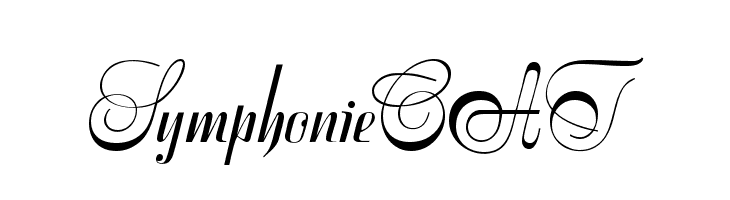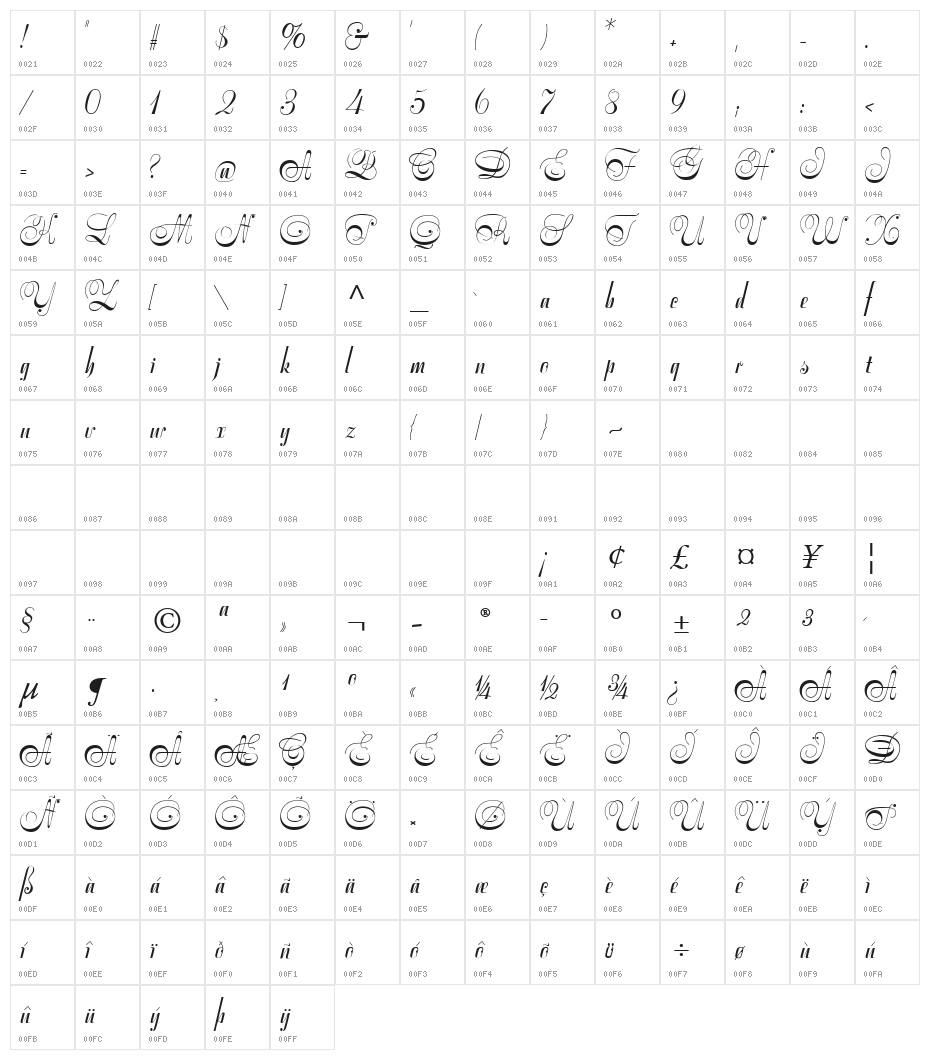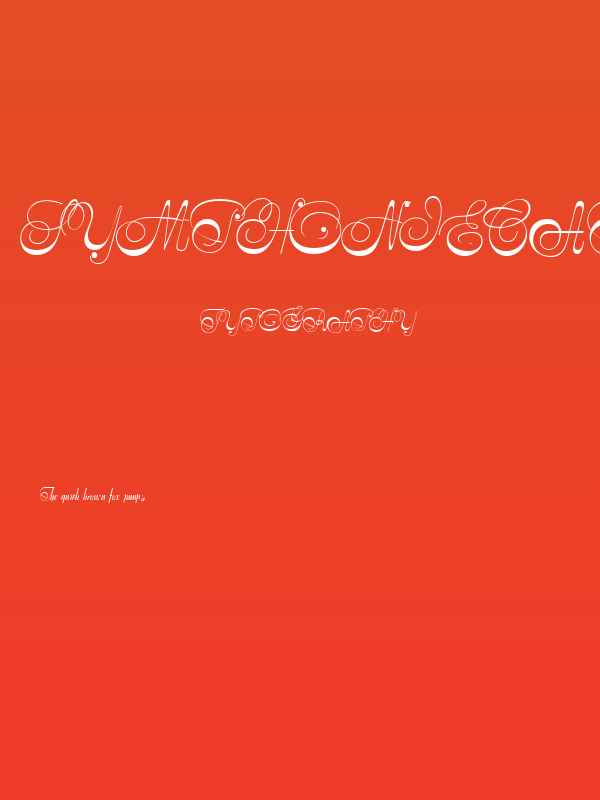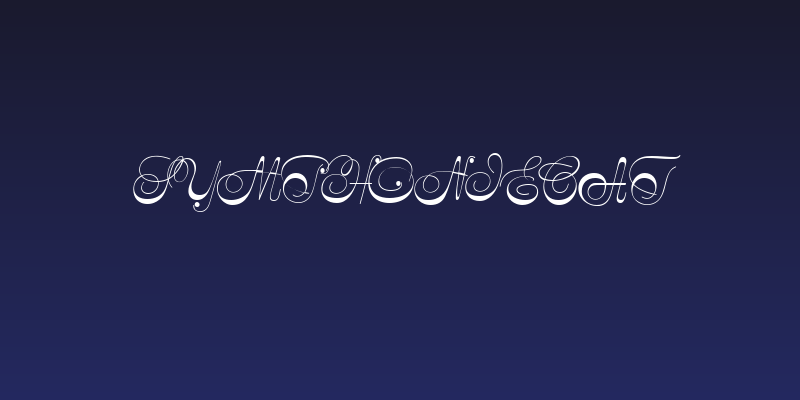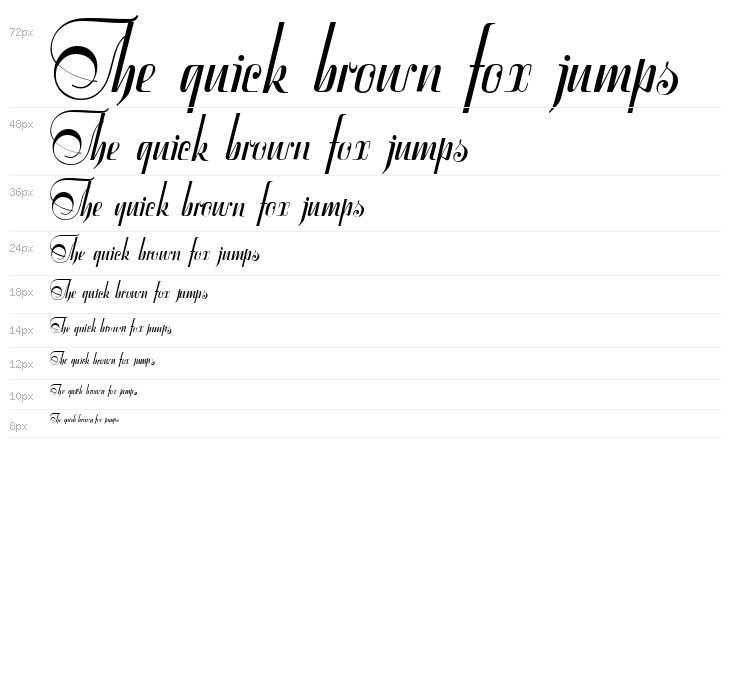
SymphonieCAT Font
SymphonieCAT Description
This font features an elegant and sophisticated design with a strong emphasis on decorative elements. The uppercase letters are characterized by intricate swirls and loops, giving them a highly ornamental appearance. The lowercase letters maintain a more streamlined and cursive style, providing a nice contrast to the elaborate uppercase. The numerals are designed with a slight slant, adding to the overall dynamic feel of the font. Special characters are also included, each with unique embellishments that enhance the font's decorative nature. The combination of thick and thin strokes throughout the characters creates a high contrast, adding to the font's visual appeal. This font is perfect for projects that require a touch of elegance and sophistication.